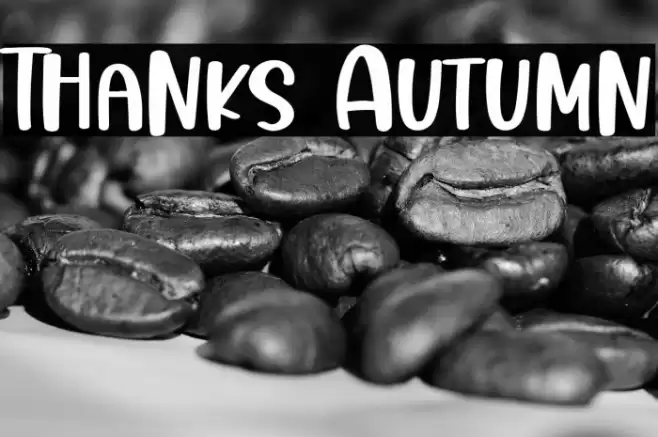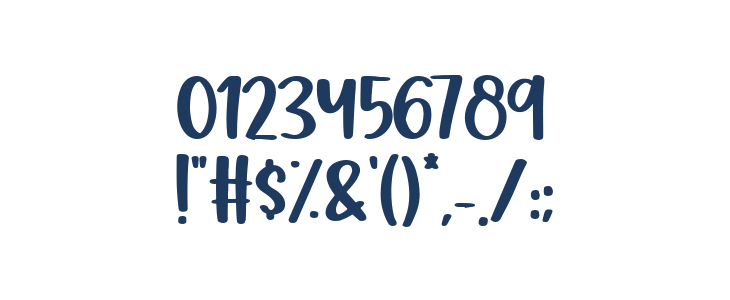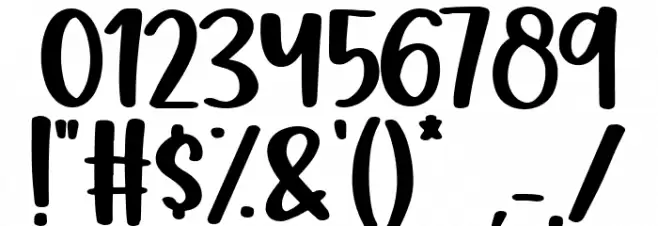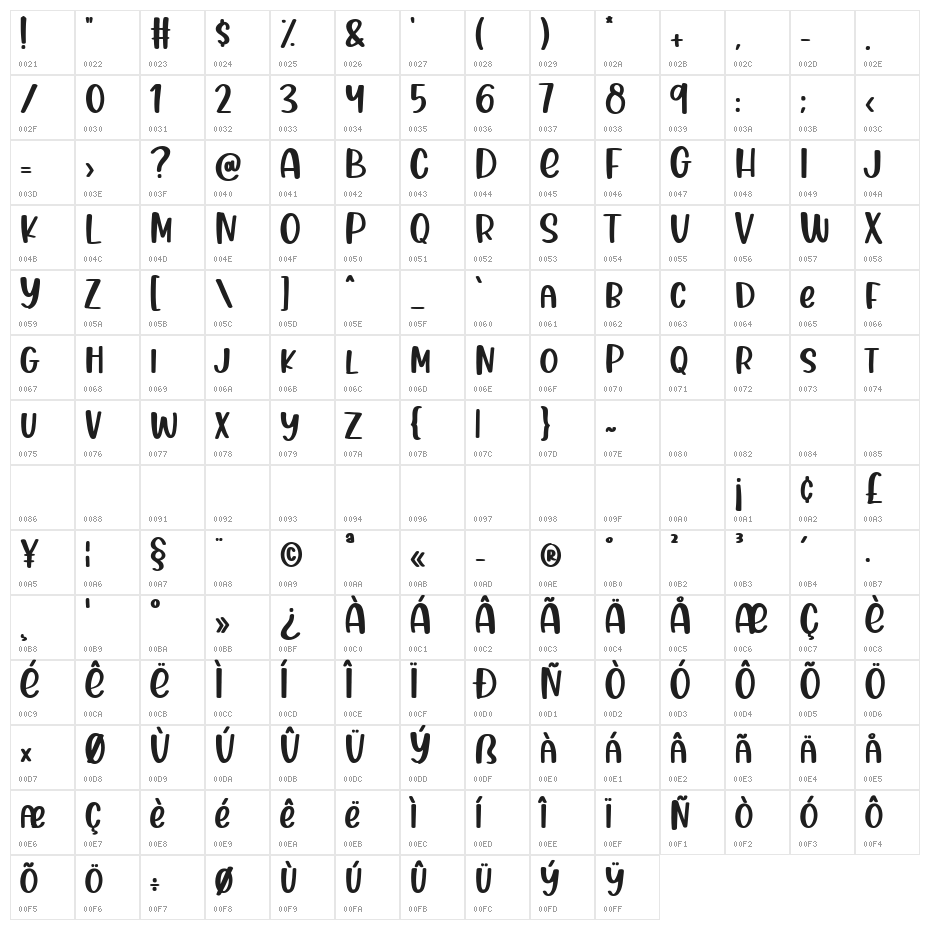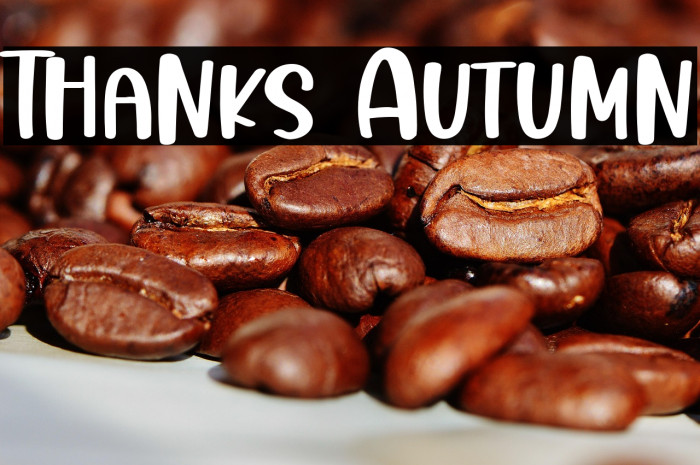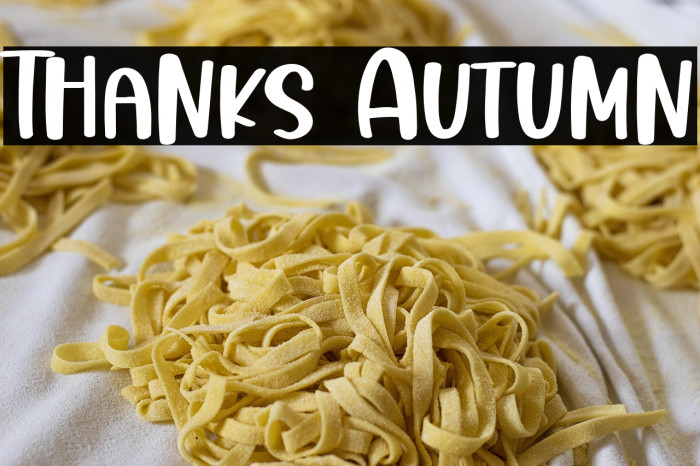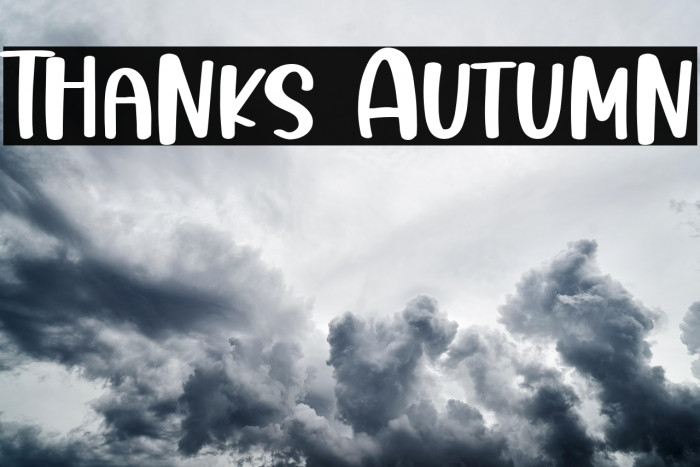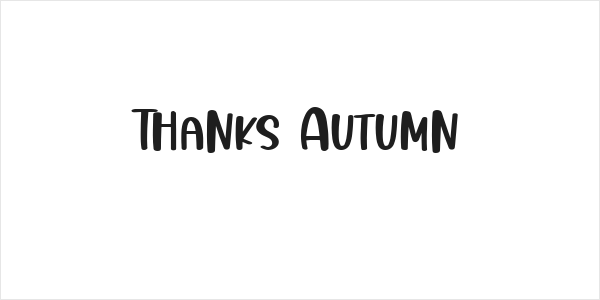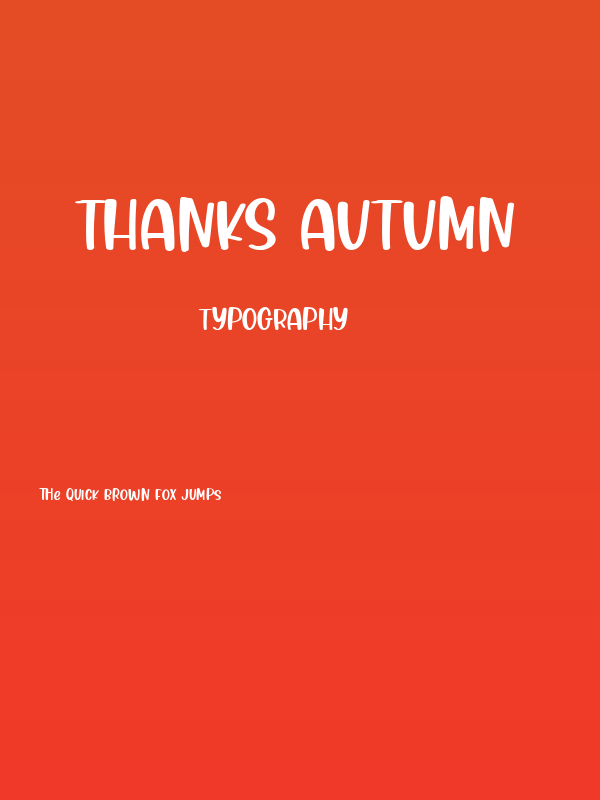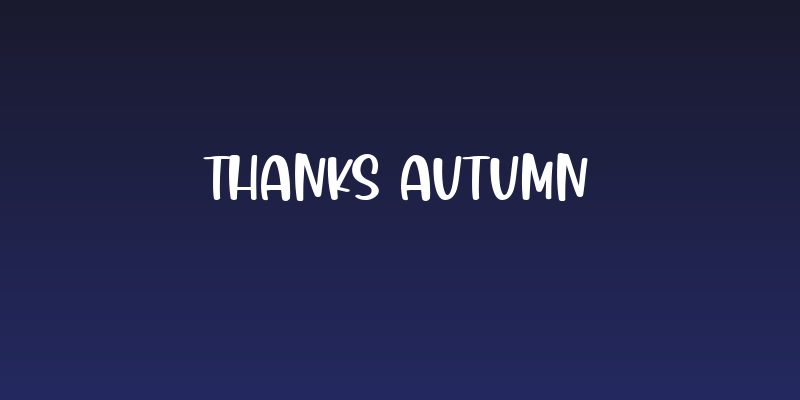
Thanks Autumn Font
Thanks Autumn Description
This font features a playful and bold handwritten style, characterized by its thick, rounded strokes and slightly irregular shapes. The uppercase and lowercase letters maintain a consistent weight, contributing to a cohesive and friendly appearance. The numerals and special characters are designed with the same playful aesthetic, making them easily legible and visually appealing. The font's overall style is casual and approachable, suitable for projects that require a touch of personality and warmth.
A bold, playful handwritten font with rounded strokes and a casual style from Regular fonts.
- Proposed Projects: Ideal for greeting cards, children's books, playful branding, and social media graphics.
- Overall Style: Casual